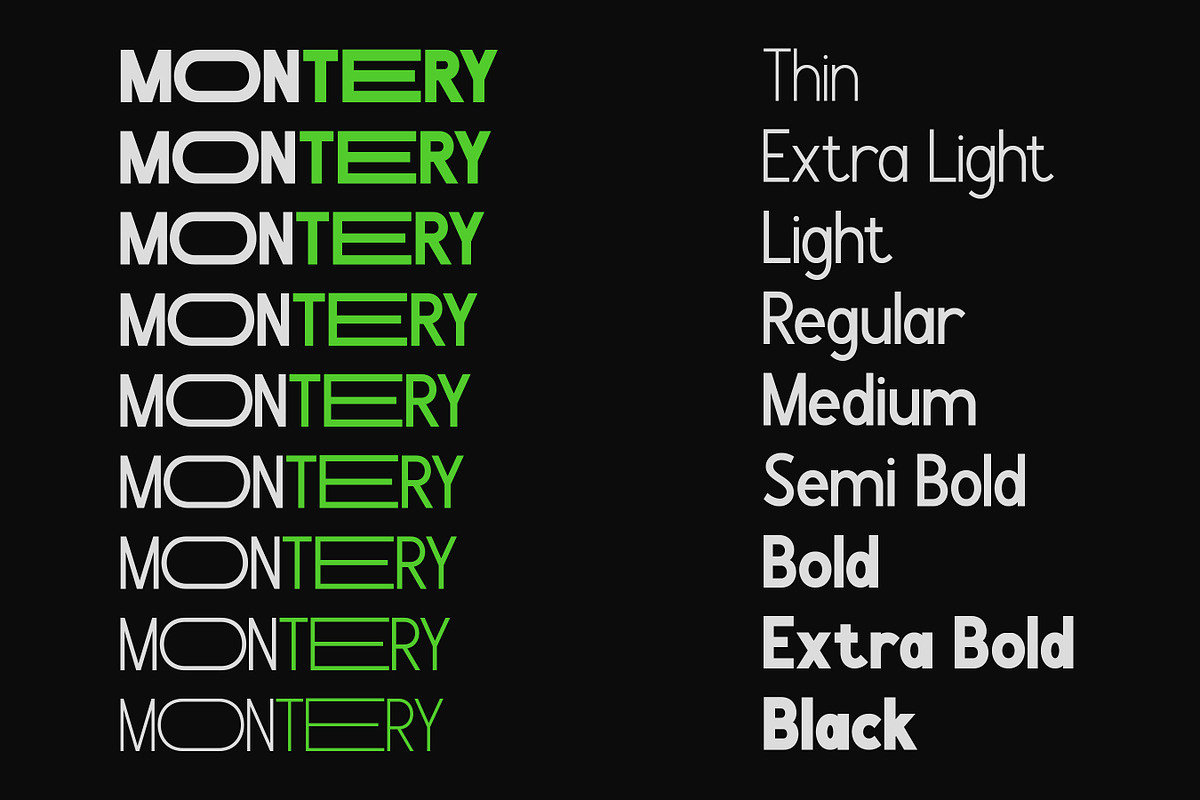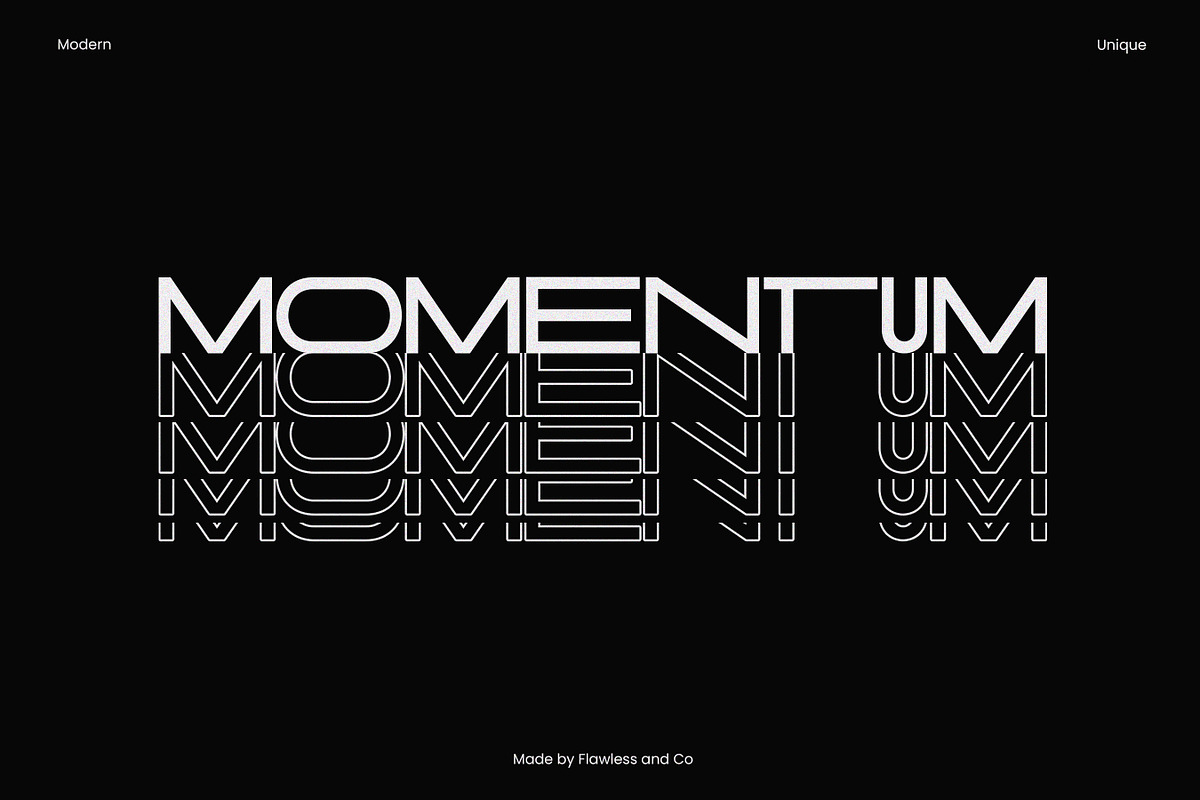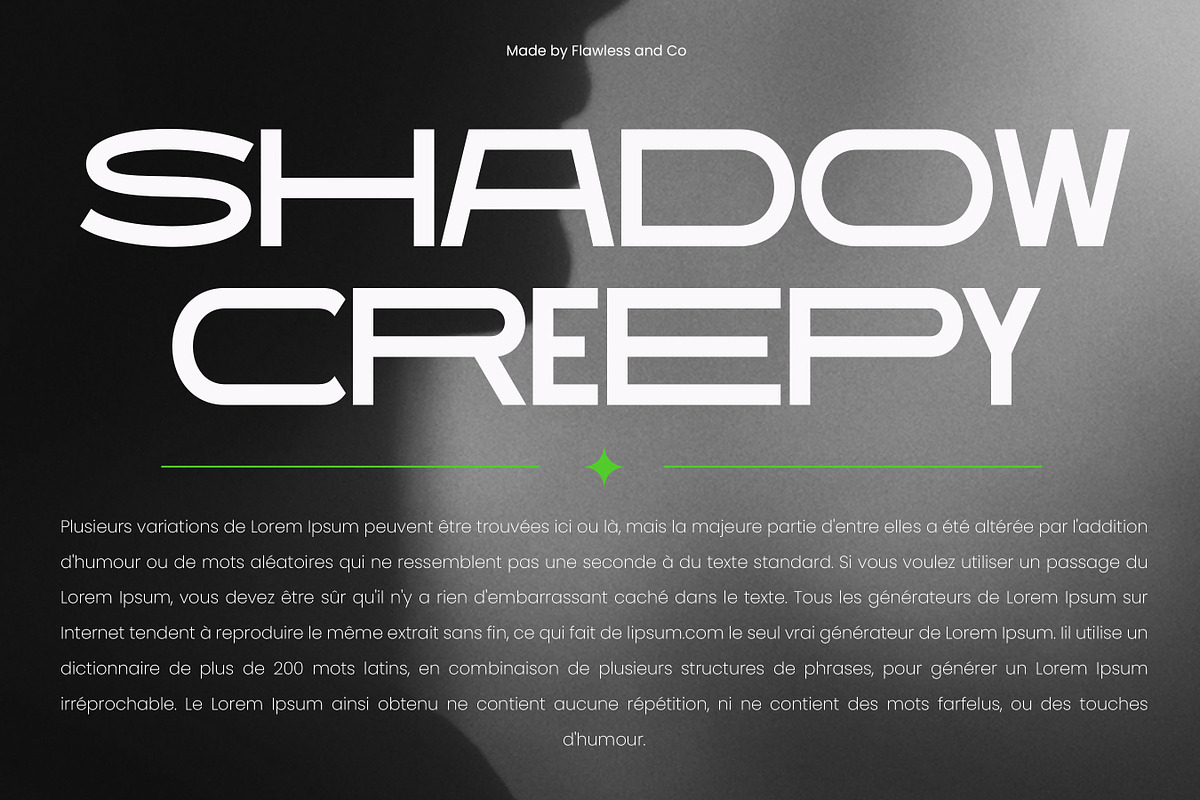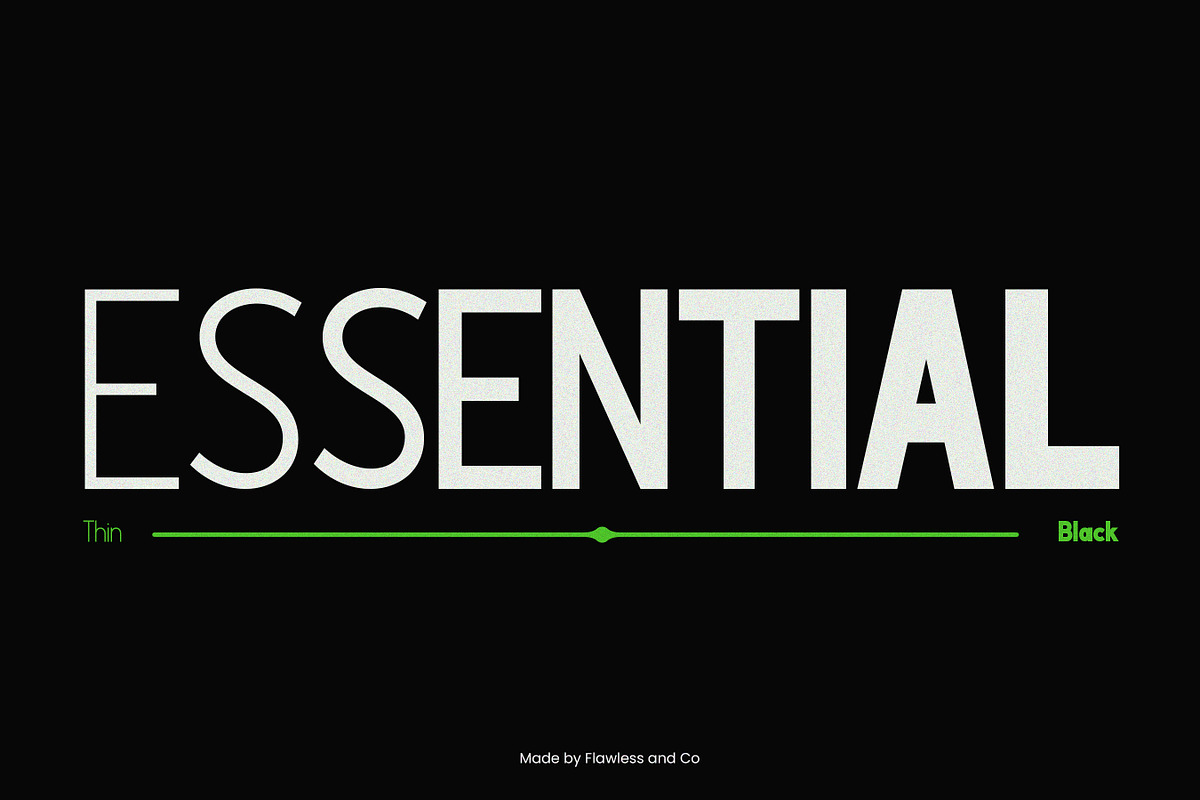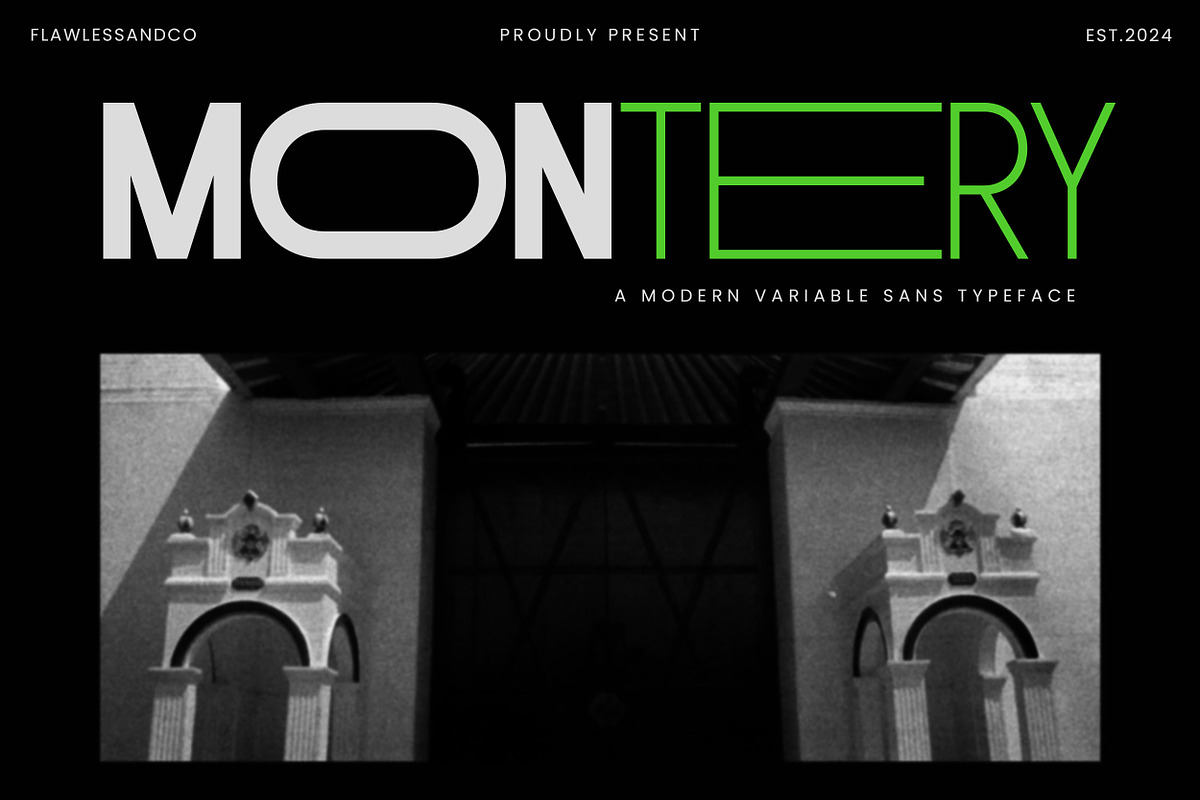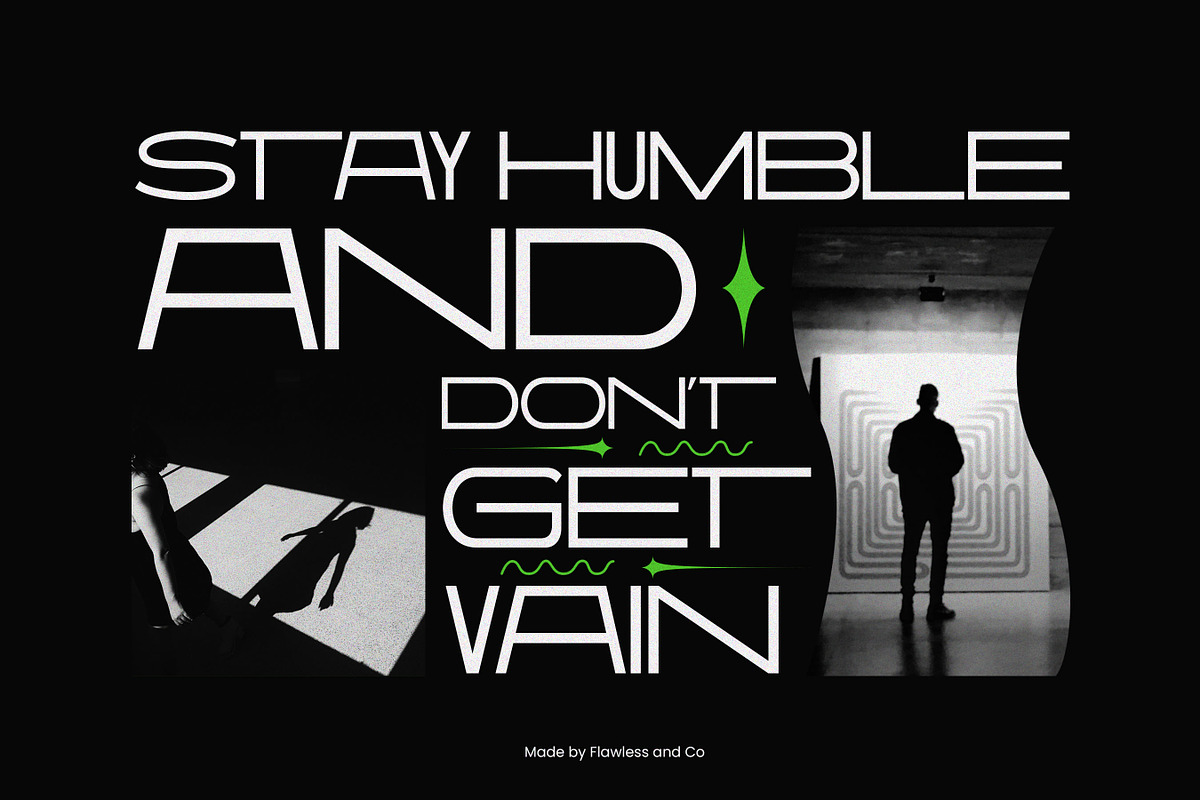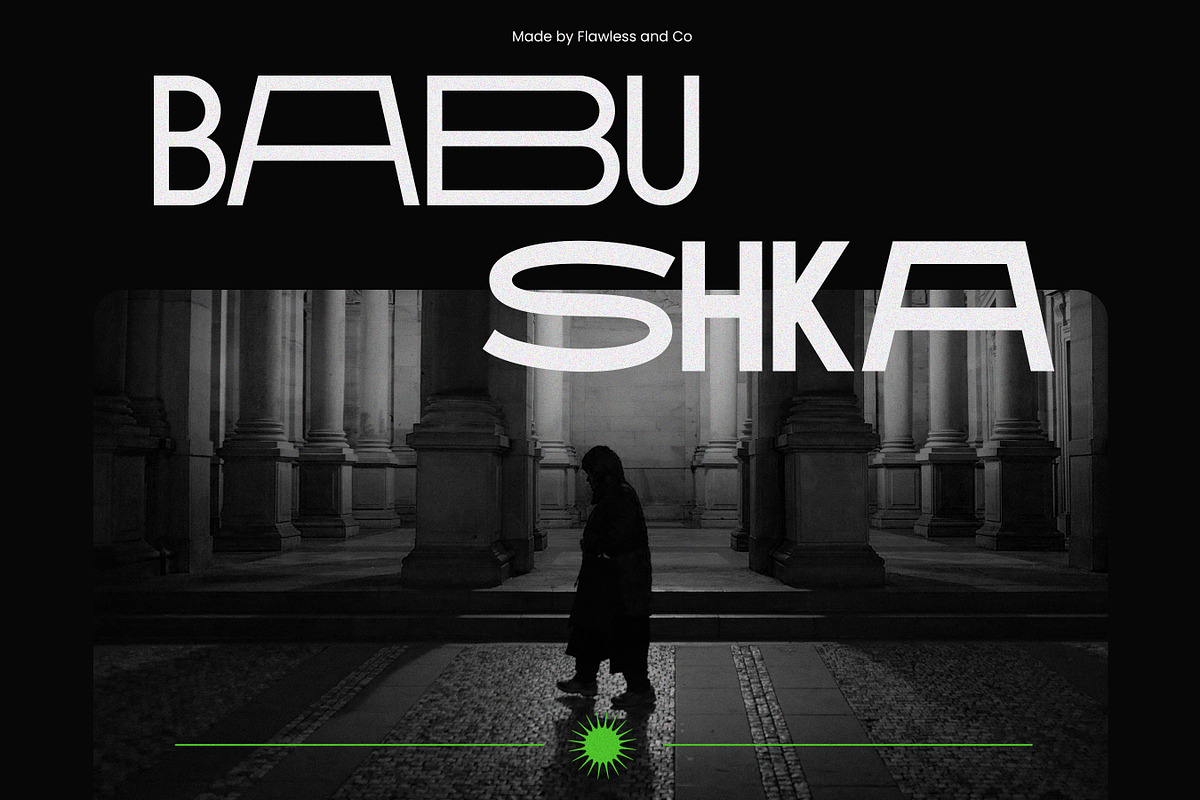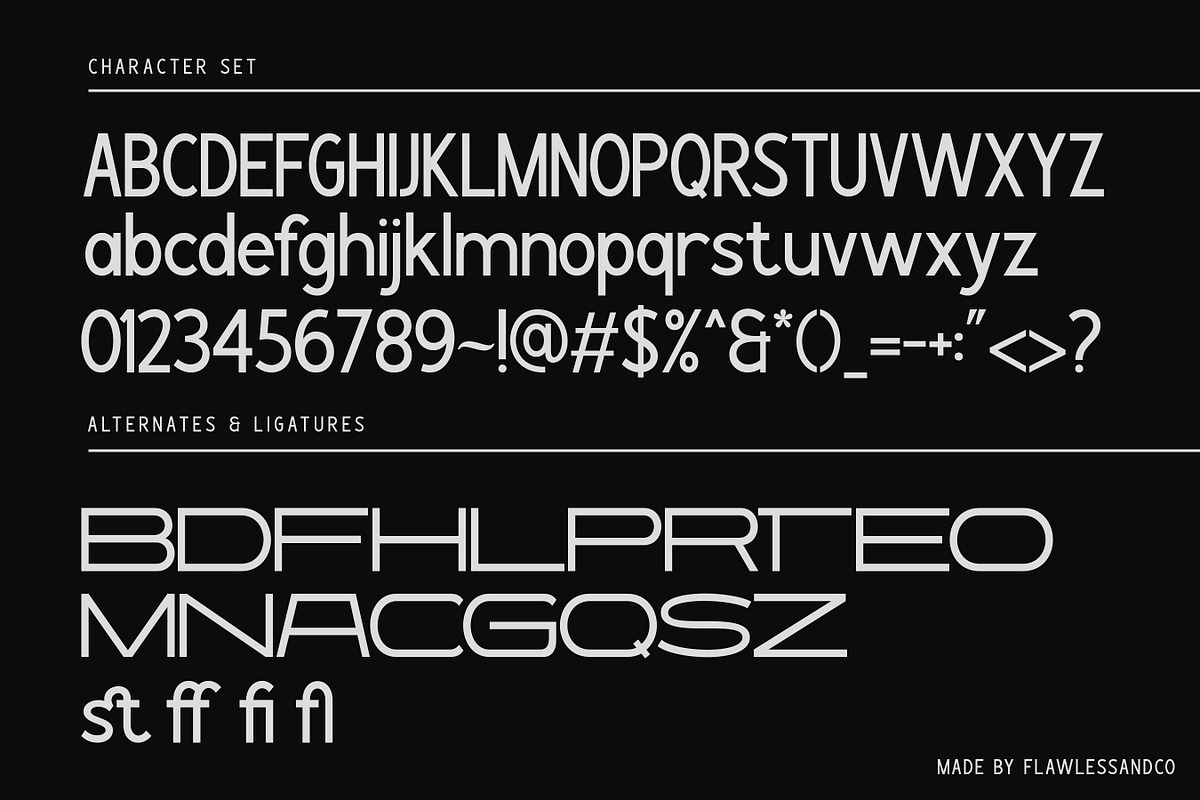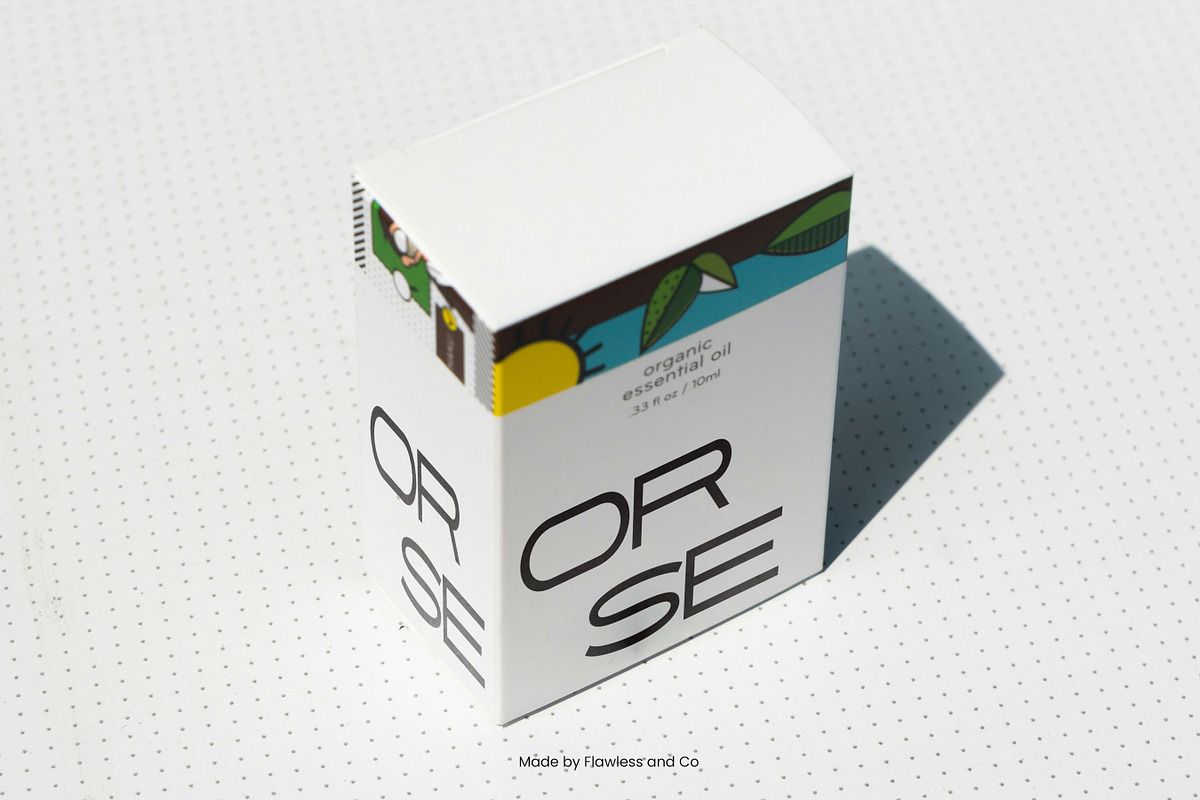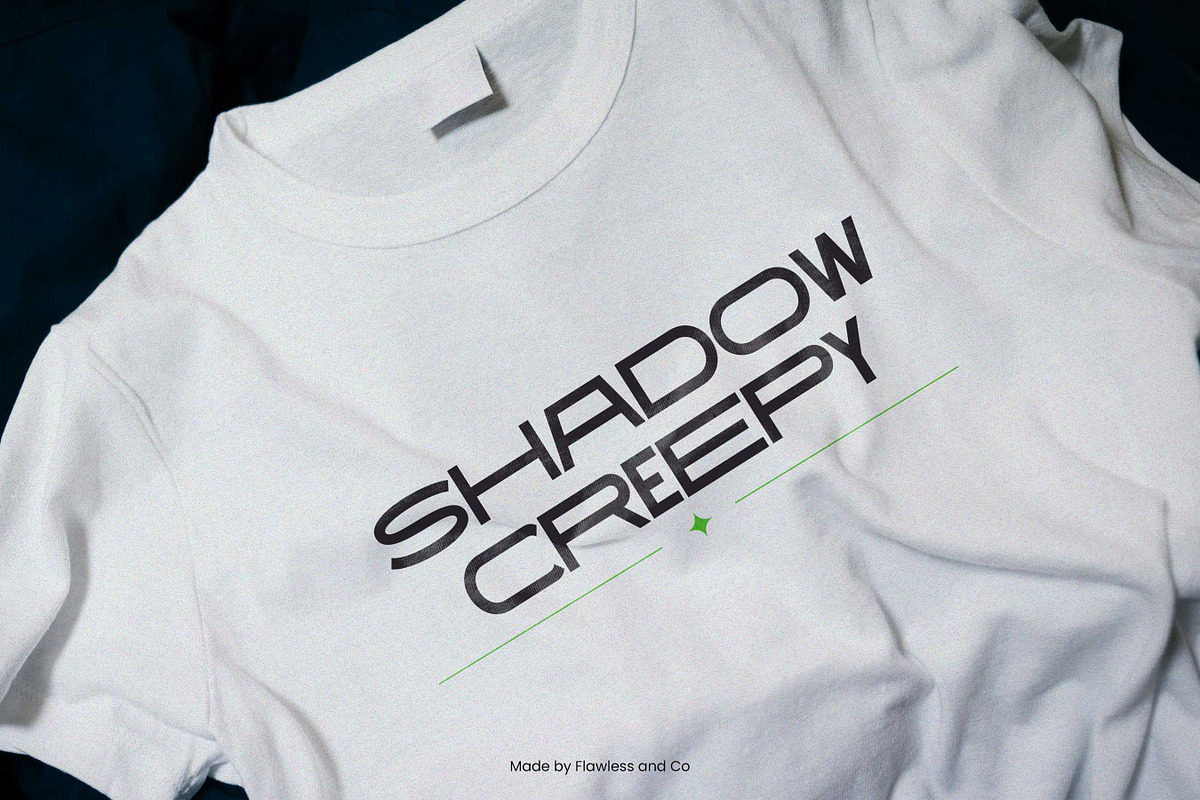
Montery - Family Sans Serif
Introducing "Montery," a sleek and versatile sans serif font family designed to meet the needs of modern design. With its clean lines, dynamic shapes, and variable weights, Montery is perfect for creating professional and contemporary designs that require flexibility and style.
Multilingual Uppercase alphabet A-Z Lowercase alphabet a-z Numbers 0-9 Some punctuation